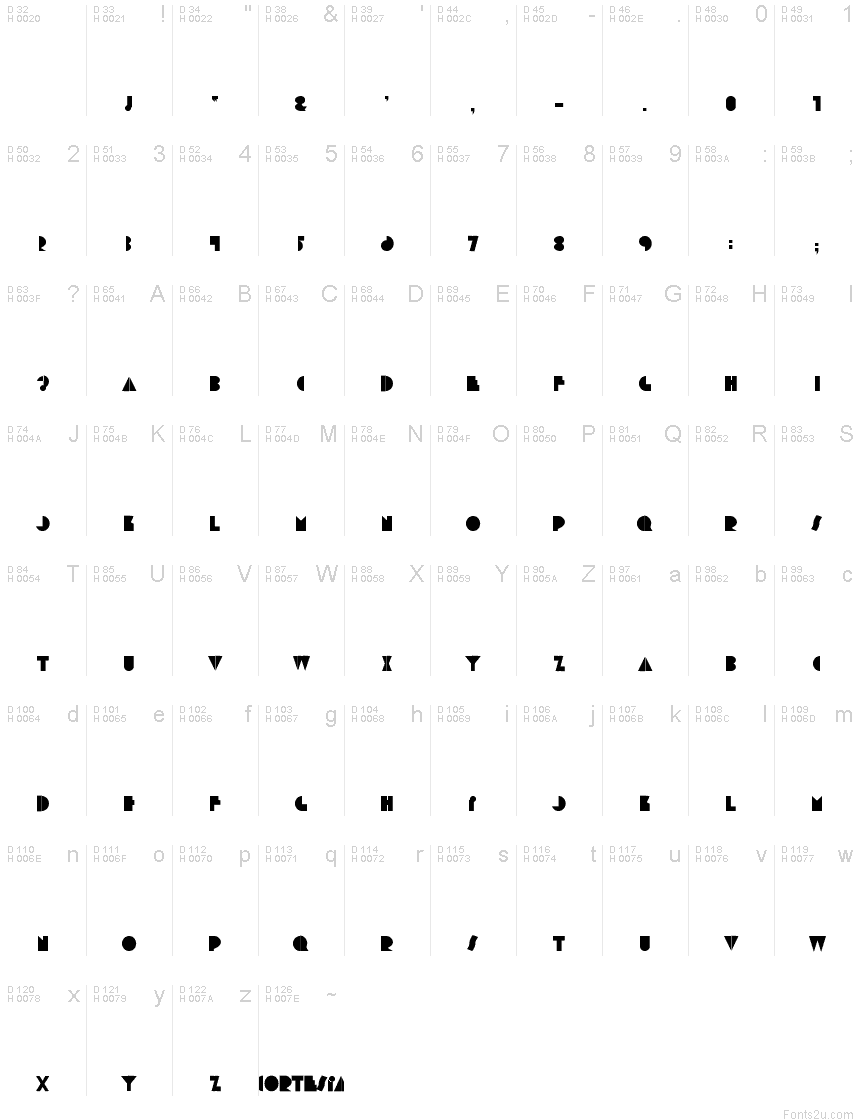
Cortesia
Cortesia font by J.F.Y.Daniel Gauthier - GautFonts is a free groovy display typeface that feels like it was cut from solid black vinyl. Heavy, blocky shapes collide with smooth circular curves, creating letters that look both modular and hand-crafted. The tight spacing and dramatically cropped forms give Cortesia a bold, almost architectural presence, so every word lands like a graphic logo rather than simple text.
Using Cortesia, you get a thick, rhythmic texture that shines on posters, album covers, event flyers, bold logo marks, product packaging, and social media graphics. This free font thrives at big sizes where its chunky counters and sharp silhouettes can breathe and overlap with images or color blocks. Pair it with a clean, neutral sans serif for body copy, and let Cortesia handle the loud, attention-grabbing moments in your layout.